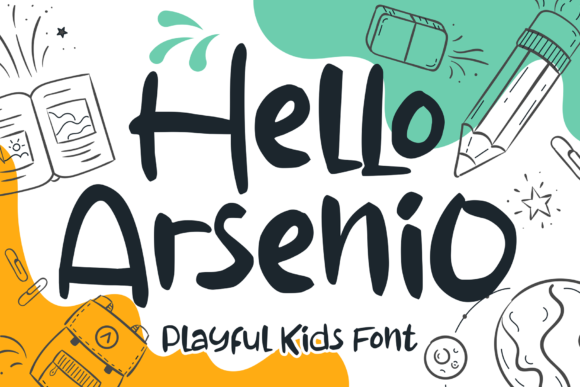
Unleash your creativity with Hello Arsenio, the playful and captivating display font that adds a touch of whimsy to your designs. Its charming and quirky character shines through in every letter, making it the perfect choice for eye-catching headlines, playful invitations, cheerful branding, and more.
Step into a world of imagination and delight as you explore the endless possibilities of Hello Arsenio. With its unique and expressive style, this font is sure to leave a lasting impression on your audience. Designed by the talented figuree studio, Hello Arsenio is a masterpiece that blends playfulness, cuteness, and a dash of quirkiness to create a truly captivating visual experience.
Transport yourself to a world where words come alive and stories unfold with each letter. Hello Arsenio's unique design makes it incredibly adaptable, allowing you to effortlessly create a wide range of stunning designs. Let your creativity soar as you craft children's invitations that spark joy, branding that oozes charm, and marketing materials that leave an unforgettable mark.
Dive into a world of limitless possibilities with Hello Arsenio, the font that captures the essence of fun and imagination. Its playful nature is sure to ignite your creativity and inspire you to create designs that connect with audiences on a deeper level. Experience the magic of Hello Arsenio today and embark on a journey of visual storytelling that will leave them captivated from start to finish.